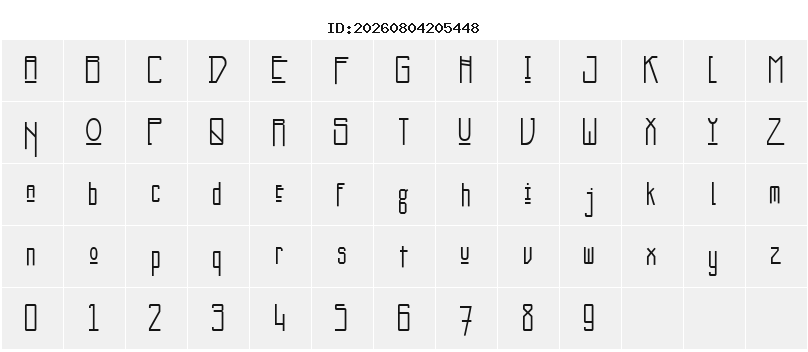
About NewDeli.ttf
NewDeli.ttf is a modern, elegant sans-serif font designed for ultimate readability and visual harmony. Perfect for branding, headlines, web design, and print materials.